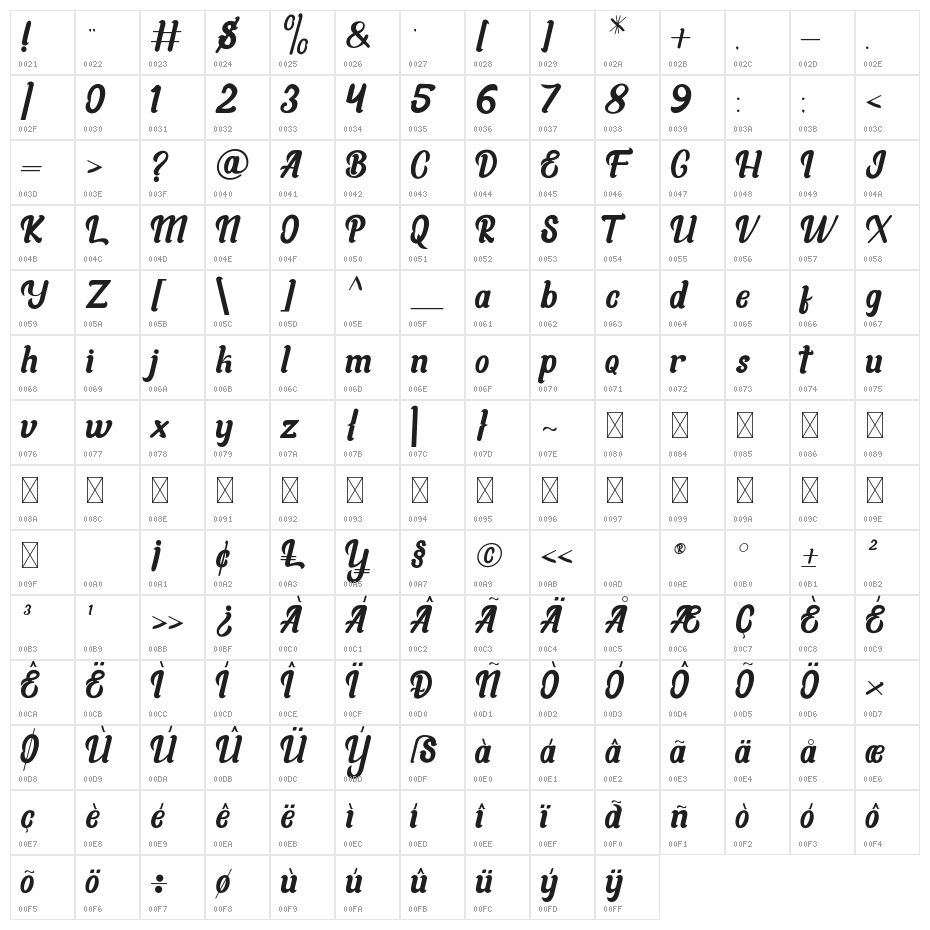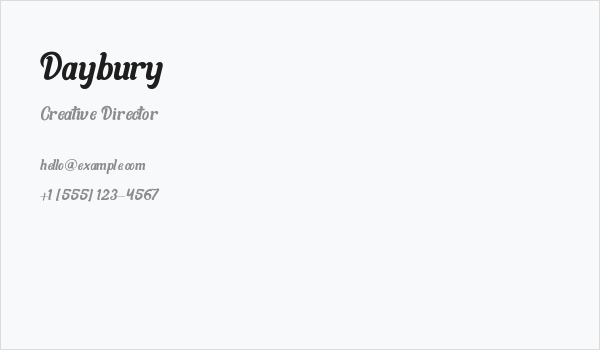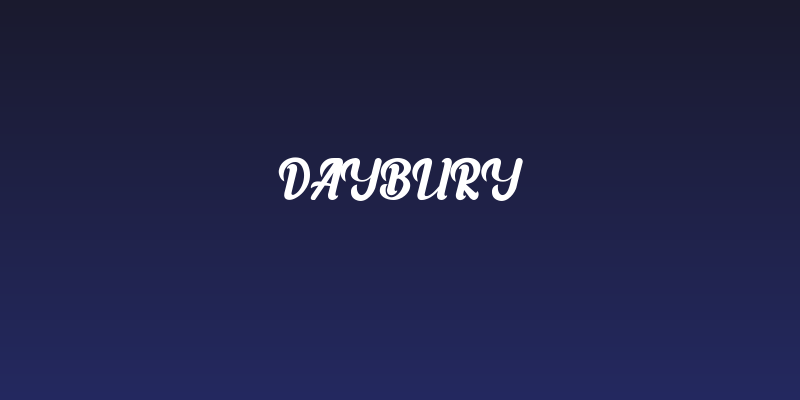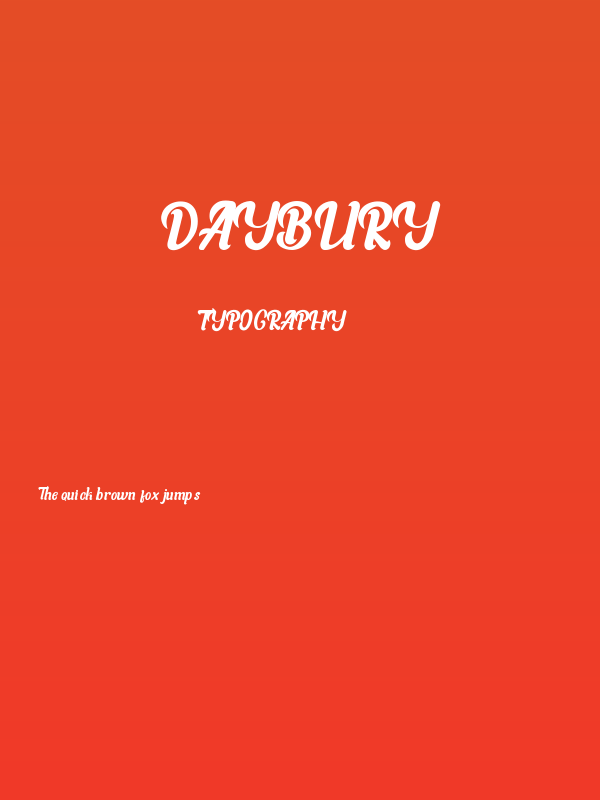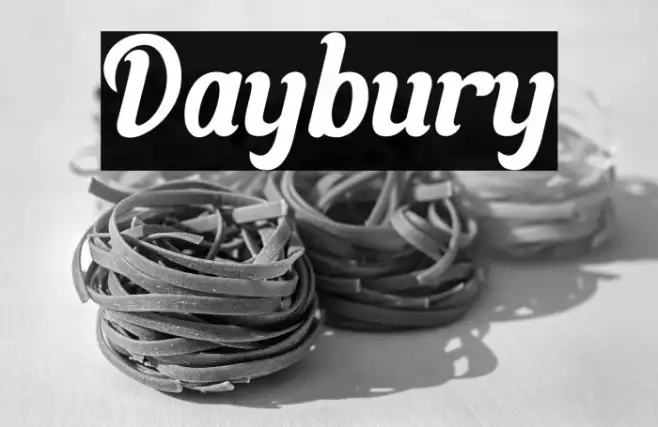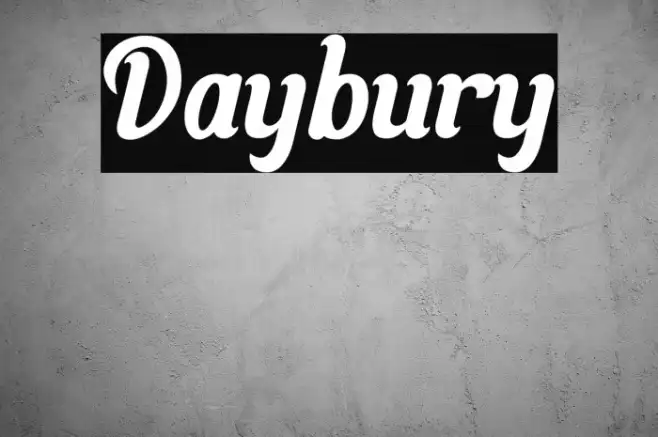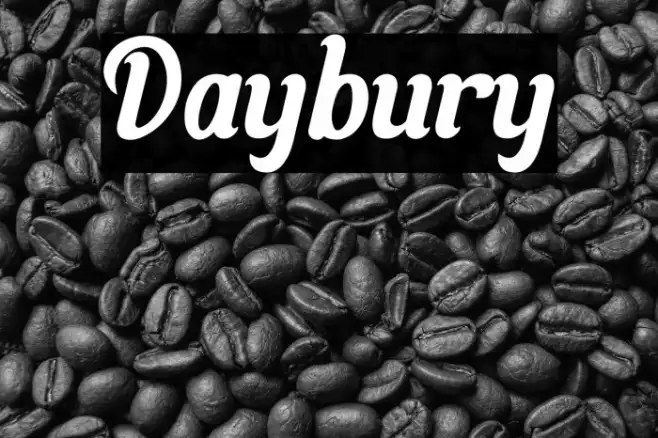
Daybury Font
Daybury Description
This font features a bold and dynamic script style, characterized by its flowing, cursive letterforms that convey a sense of elegance and movement. The uppercase letters are slightly more ornate, with flourishes that add a touch of sophistication. The lowercase letters maintain a consistent flow, enhancing readability while retaining a stylish appearance. The numerals are well-proportioned, matching the overall aesthetic of the alphabet. Special characters are designed with the same attention to detail, ensuring they integrate seamlessly with the rest of the font. The overall impression is one of energy and elegance, making it suitable for creative and expressive design projects.